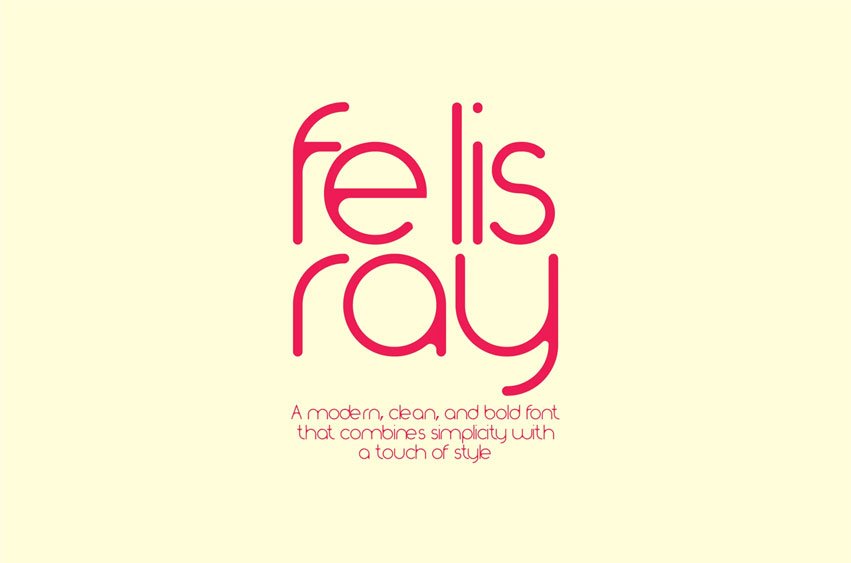
Felisray Font is a modern and bold font that seamlessly combines simplicity with a touch of style. Its clean and geometric design makes it perfect for a wide range of creative projects, from logos and branding to posters and digital designs.